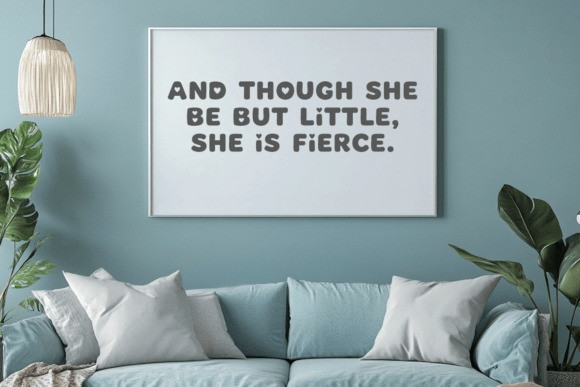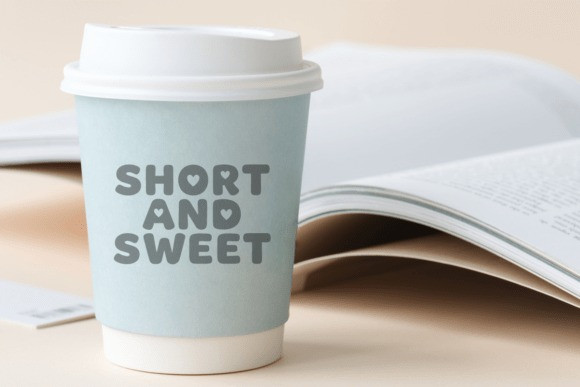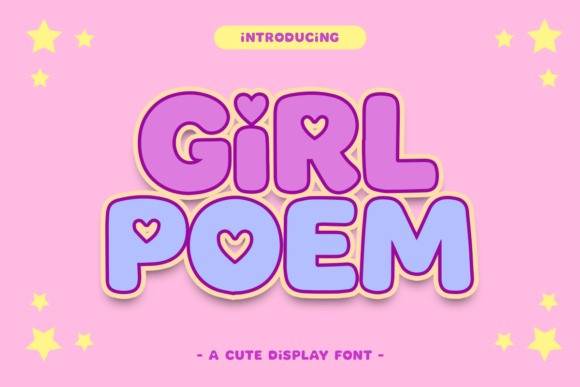
Girl Poem Font
Girl Poem Font – a typeface that dances between elegance and whimsy. Designed with a playful spirit and a feminine touch, Girl Poem captures the feeling of handwritten notes, daydreams, and soft laughter tucked into the margins of a journal. Each curve and stroke feels intentional yet effortless, blending stylish sophistication with a lighthearted charm.
Perfect for everything from branding to personal projects, Girl Poem font brings a graceful voice that feels both modern and timeless. It doesn’t just spell words – it tells a story, one letter at a time.